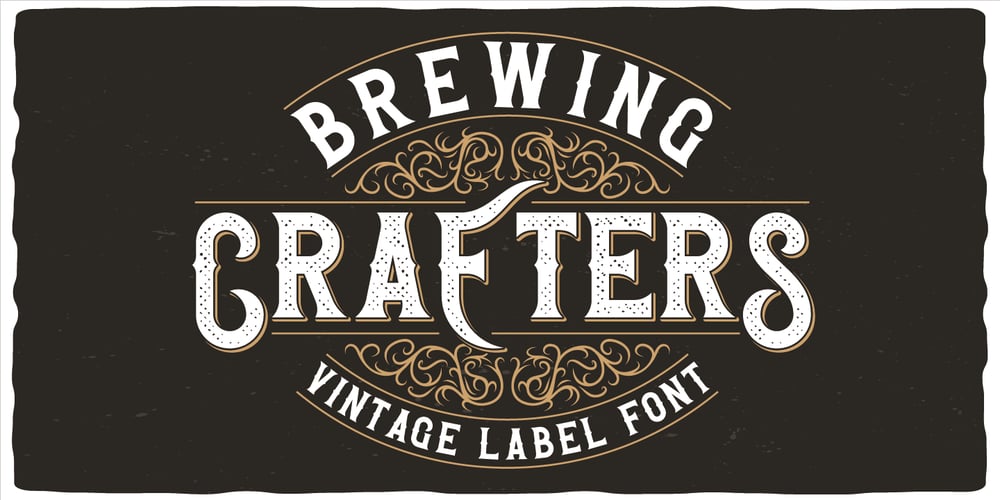
Brewing Crafters Font Family was designed by Oleg Voznyy and published by Vozzy. Brewing Crafters contains 6 styles and family package options. Introducing a vintage look label font named Brewing Crafters. All available characters you can see at the screenshot. This font have 6 styles – Regular, Full, Shadow, Texture, Shadow FX and Texture FX. This font will good viewed on any retro design like poster, t-shirt, label, logo etc.